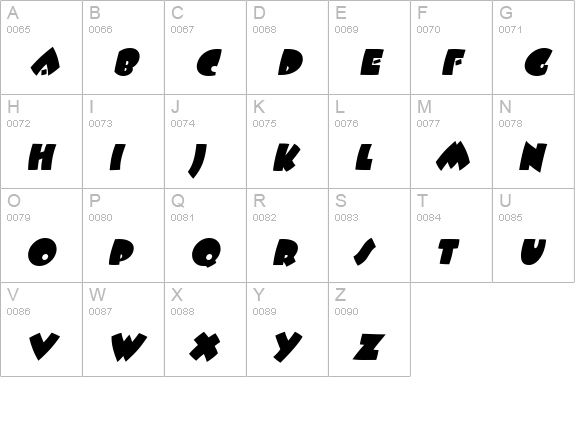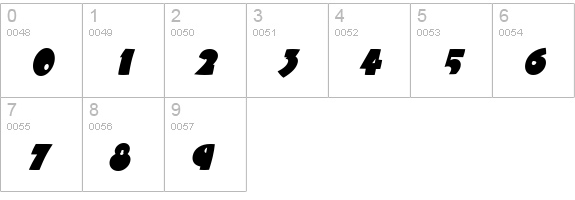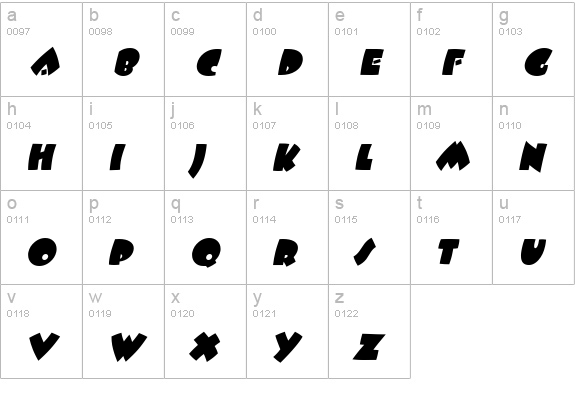
Beetlejuice Italic Font Details
Beetlejuice Italic is a distinctive, italic variant in the Beetlejuice typeface family \xE2\x80\x94 well suited to design and typography projects.
Beetlejuice Italic font is a whimsical and playful typeface that adds a touch of mischief to any design project. With its slanted and curvy letters, this font exudes a sense of fun and spontaneity. Perfect for creating eye-catching headlines, posters, and invitations, Beetlejuice Italic font is sure to make your text stand out. Best of all, Beetlejuice Italic font is absolutely free to download at FontsMarket.com. Whether you're a designer looking to add some flair to your creations or a hobbyist seeking a unique font for personal projects, Beetlejuice Italic font is a fantastic choice. Download it today and let your creativity run wild with this exciting and free font!